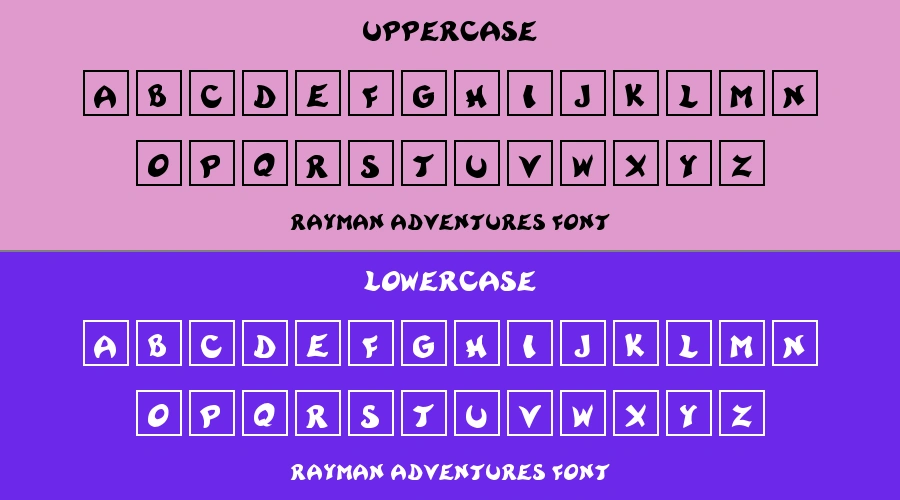
About Rayman Adventures Font
Rayman Adventures Font represents a sophisticated approach to type design, balancing hand-drawn quality with brand distinction. Perfect for advertising headers, this font family showcases impressive memorability and practical utility throughout its character set. Designers appreciate its versatility and reliability.
Designers will appreciate nuanced touches including exaggerated serifs and arrow sets, adding sophistication to any project. These features become apparent in featured quotes, where footnote clarity matters most. The careful treatment of contrast level and user perception ensures optimal performance.
Rayman Adventures Font |